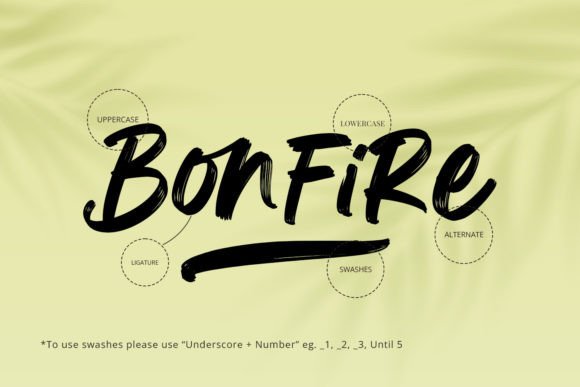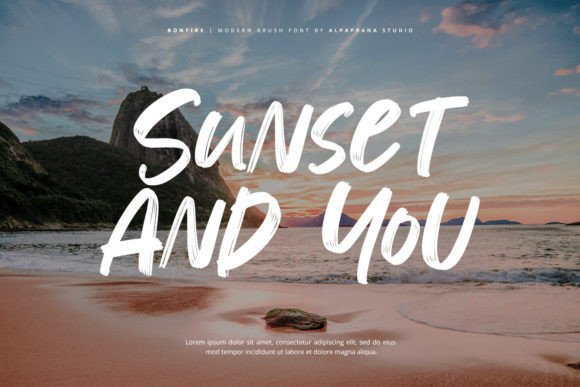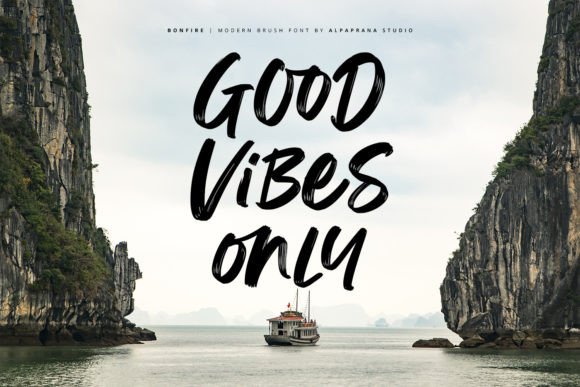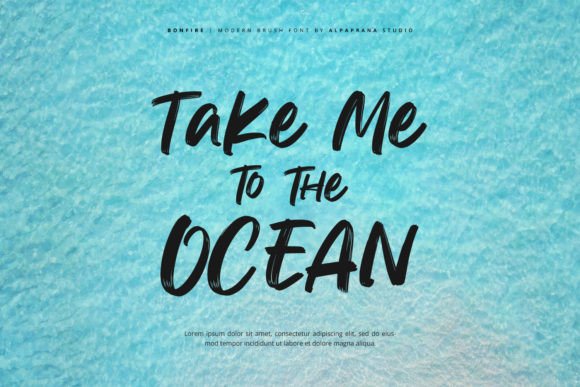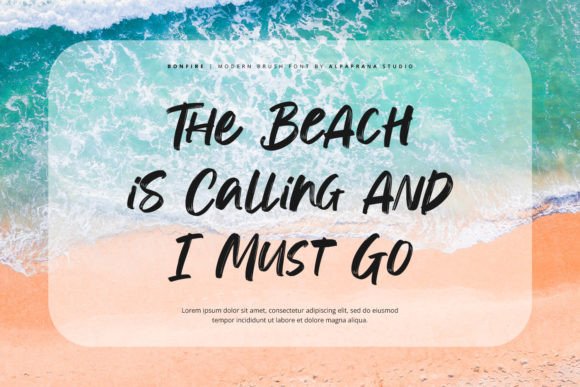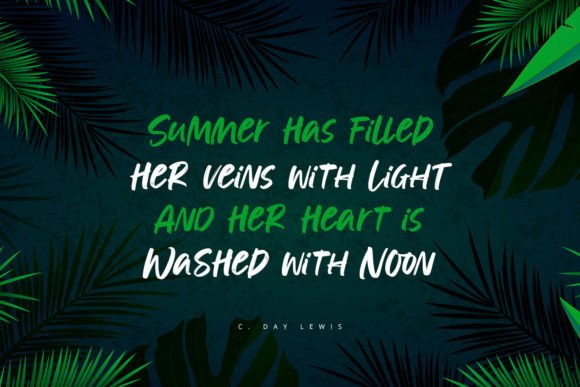
Introducing Bonfire Font: The Trendy and Bold Handwritten Brush Font
Are you looking for a font that adds a lovely touch to your designs? Look no further than Bonfire Font! This trendy and bold handwritten brush font is perfect for cartoon-related designs, children’s games, and any creation that requires a playful and charming feel. In this article, we’ll dive into the features and benefits of Bonfire Font, and explore how you can use it to take your designs to the next level.
What is Bonfire Font?
Bonfire Font is a unique and eye-catching handwritten brush font that is sure to make your designs stand out. With its bold and playful strokes, this font is perfect for adding a personal touch to your creations. Whether you’re designing a logo, a brochure, or a social media graphic, Bonfire Font is an excellent choice.
Key Features of Bonfire Font
- Trendy and Bold: Bonfire Font is a modern and bold font that is sure to grab attention. Its unique brush strokes give it a distinctive look that sets it apart from other fonts.
- Handwritten: This font has a personal and handwritten feel that makes it perfect for designs that require a touch of personality.
- Versatile: Bonfire Font can be used for a wide range of designs, from cartoon-related designs to children’s games, and even for more serious designs that require a playful touch.
- Easy to Read: Despite its bold and playful nature, Bonfire Font is easy to read, making it perfect for designs that require a clear and concise message.
Benefits of Using Bonfire Font
So, why should you choose Bonfire Font for your designs? Here are just a few benefits of using this amazing font:
- Adds a Personal Touch: Bonfire Font adds a personal and human touch to your designs, making them more relatable and engaging.
- Perfect for Kids’ Designs: The playful and charming nature of Bonfire Font makes it perfect for designs aimed at kids, such as children’s games, educational materials, and more.
- Great for Logos and Branding: Bonfire Font is also perfect for logos and branding, as it can help create a unique and memorable identity for your brand.
- Easy to Pair: Bonfire Font is easy to pair with other fonts, making it versatile and flexible for a wide range of designs.
How to Use Bonfire Font
Using Bonfire Font is easy! Here are a few tips to get you started:
- Use it for Headings: Bonfire Font is perfect for headings and titles, as it adds a bold and playful touch to your designs.
- Pair it with Other Fonts: Experiment with pairing Bonfire Font with other fonts to create a unique and interesting look.
- Use it for Kids’ Designs: As mentioned earlier, Bonfire Font is perfect for designs aimed at kids, such as children’s games, educational materials, and more.
- Experiment with Colors: Bonfire Font looks great in a variety of colors, so don’t be afraid to experiment and find the perfect color scheme for your design.
In conclusion, Bonfire Font is a trendy and bold handwritten brush font that is perfect for designers and crafters looking to add a personal touch to their designs. With its unique and eye-catching strokes, this font is sure to make your designs stand out. Whether you’re designing a logo, a brochure, or a social media graphic, Bonfire Font is an excellent choice. So why not give it a try and see how it can elevate your designs to the next level?
Here are a few tips and tricks to help you get the most out of Bonfire Font:
- Use it sparingly: While Bonfire Font is bold and playful, it can be overwhelming if used too much. Use it sparingly to add a touch of personality to your designs.
- Experiment with sizes: Bonfire Font looks great in a variety of sizes, so experiment to find the perfect size for your design.
- Pair it with images: Bonfire Font pairs well with images, so consider using it in combination with illustrations or graphics to create a unique and eye-catching design.